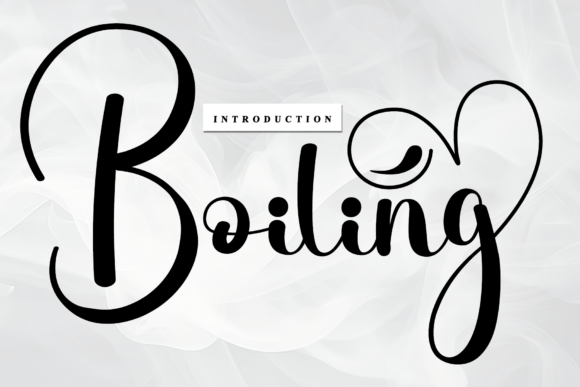
The Perfect Recipe for a Captivating Design
Have you ever been brainstorming ideas for a new project, and suddenly, a spark of creativity hits you? Maybe it’s the perfect combination of colors, or perhaps it’s the ideal font that brings your vision to life. For many designers, that moment is what makes all the hard work worth it. And for those who have discovered the Boiling Font, they know exactly what we’re talking about.
The Boiling Font is a timeless, handwritten font that’s perfect for creating eye-catching logos, branding, and quotes. Its unique, beautiful touch brings any design to life, making it a valuable addition to any designer’s toolkit. Whether you’re working on a personal project or a client’s campaign, the Boiling Font is sure to elevate your design and leave a lasting impression.
Key Features of Boiling Font
- Unique Characteristics: The font features a unique, hand-drawn design with bold lines and intricate details, giving it a distinctive and eye-catching appearance.
Designer Review: Boiling Font
Boiling Font, with its bold and dynamic style, is certainly a statement piece ✨. I appreciate the way the font designer has experimented with letterforms, creating a unique aesthetic that’s sure to grab attention. The font’s versatility allows it to be used in a variety of contexts, from headings to body text, and even as a decorative element.
The font’s boldness and expressiveness make it well-suited for use in digital design, particularly in social media and advertising. Its energetic feel can help to convey a sense of excitement and urgency, making it a great choice for projects that require a bold and attention-grabbing look.
- ⚠️ The font’s boldness can make it difficult to read at small sizes or in low-light conditions.
- ⚠️ Some letterforms may be difficult to distinguish from one another, particularly for readers with visual impairments.
Overall, I think Boiling Font is a great choice for designers looking to add some excitement and energy to their projects. While it may have some limitations, its unique style and versatility make it a valuable addition to any font library.
Boiling Font is ideal for creating dramatic and eye-catching text effects in various designs, such as:
- Movie posters and trailers.
- Advertising and marketing materials.
- Graphic novels and comics.